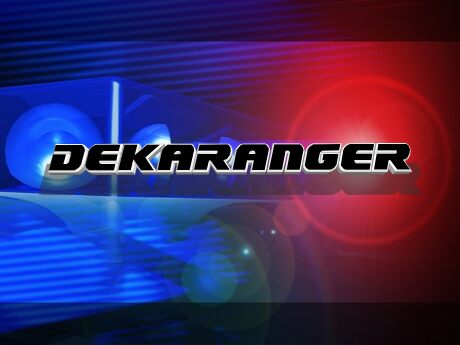
Dekaranger
Dekaranger, a futuristic and bold display font crafted by Iconian Fonts, exudes a captivating sense of dynamism and technological sophistication. With its expanded width and striking letterforms, this typeface evokes a powerful, forward-thinking aesthetic that immediately captures the viewer's attention. The strong, geometric shapes and clean lines contribute to a sleek, modern appearance, while the overall impression is one of strength, authority, and innovation.
Dekaranger's versatility makes it a compelling choice for a wide range of design applications, from eye-catching headlines and high-impact branding to dynamic user interfaces and sci-fi-inspired visual narratives. Its bold, expansive character set lends itself well to attention-grabbing display text, ensuring that your message stands out in any digital or print medium.